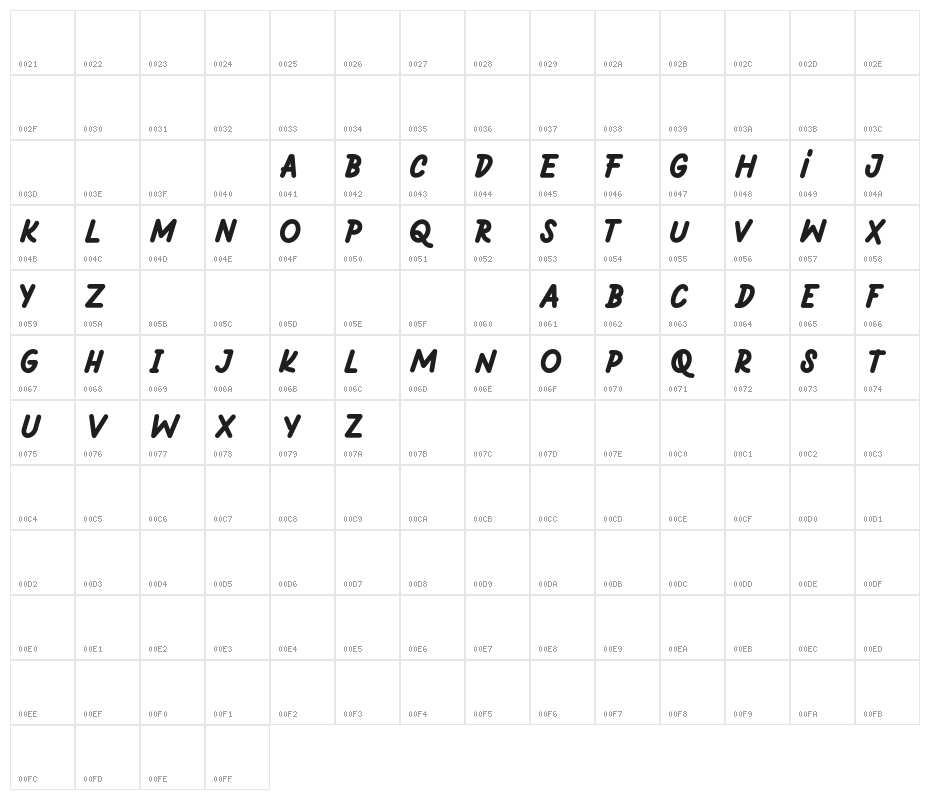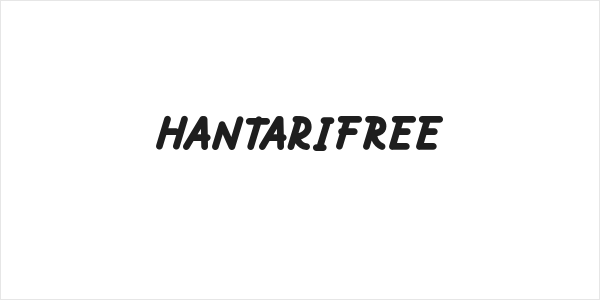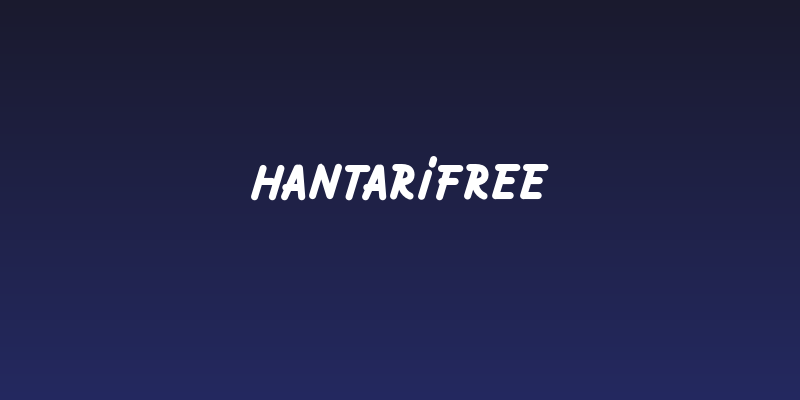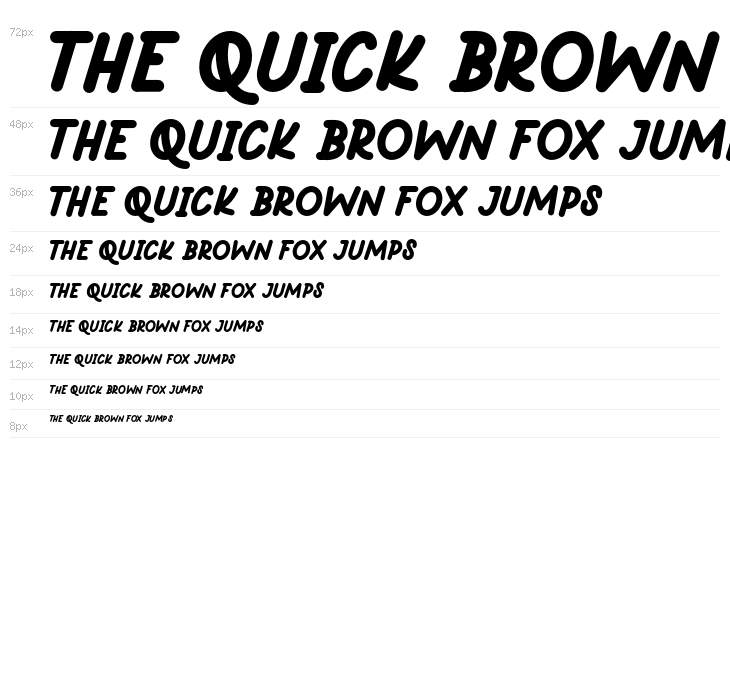
HantariFREE Font
HantariFREE Description
This font features a bold and playful script style with smooth, rounded edges and a consistent stroke width. The letters are slightly slanted, giving a dynamic and energetic feel. The uppercase and lowercase characters maintain a cohesive look, with a slight variation in size and shape that adds to its charm. The font is highly legible, making it suitable for various creative applications. Its informal and friendly appearance makes it ideal for projects that require a personal touch.
| Proposed Projects | Ideal for greeting cards, playful branding, children's books, and social media graphics. |